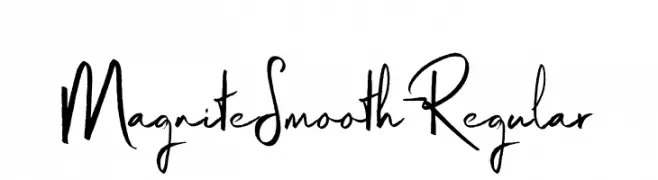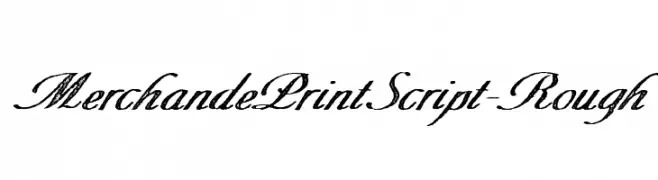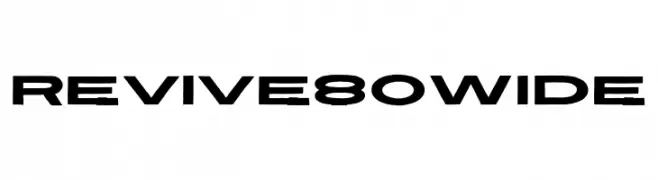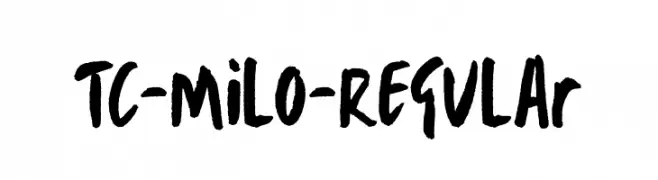
• TC-October-Regular
A bold, expressive handwritten font with thick, brush-like strokes.
• AveraSansTC-Brush
A bold, brush-style font with a hand-drawn, artistic appearance.
• Revive 80 Wide
A bold, wide, and modern font with a futuristic slant.
• TCAcrylicHandThick-Regular
A bold, hand-drawn font with an acrylic paint style.
• BrixtonPro-Heavy
A bold serif font with high contrast and strong, elegant serifs.
• BrixtonPro-Regular
A bold, elegant serif font with high contrast and classic styling.
• BuckwheatTCSans-Rough
A bold, textured sans-serif font with a distressed, vintage appearance.
• MerchandePrintScript-Rough
A vintage, textured script font with elegant, flowing curves and a distressed appearance.
• TC-Milo-Regular
A bold, hand-drawn font with an energetic and playful style.
• MagniteSmooth-Regular
A lively, expressive handwritten font with fluid and dynamic strokes.